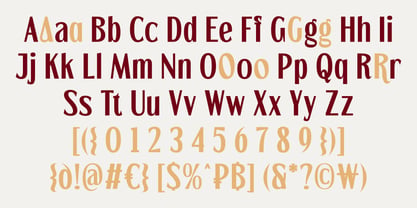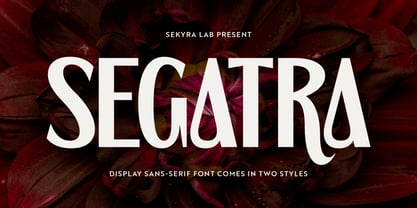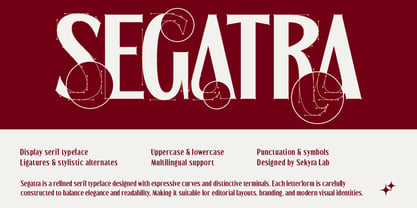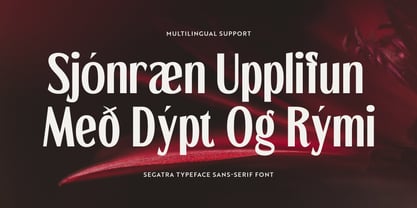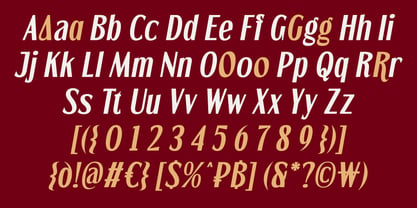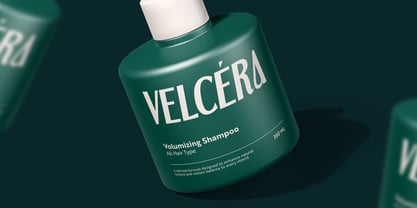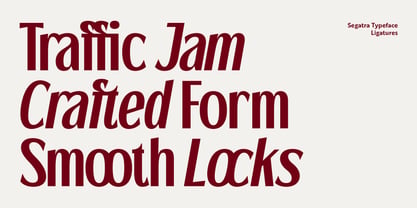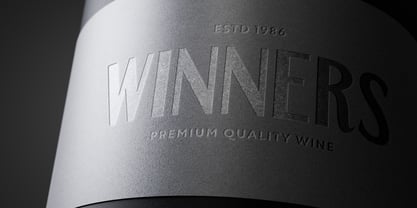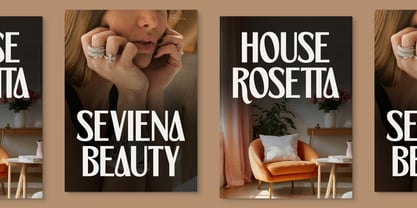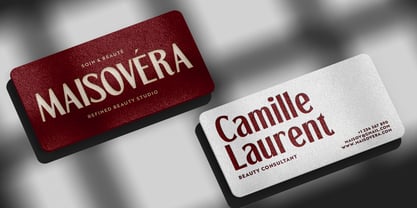
Segatra
by Sekyra Lab
The Segatra Font Family was designed by Hanif Al Irsyad and published by Sekyra Lab. Segatra contains 2 styles and family package options. More about this family
Segatra is an elegant serif display typeface crafted with expressive curves and refined details, designed to bring a sense of luxury and sophistication to modern visual projects. Each letterform is carefully shaped with distinctive terminals and smooth transitions, creating a harmonious balance between elegance and readability. The subtle contrast and flowing forms give Segatra a timeless aesthetic that feels both classic and contemporary. This typeface comes in two styles: Regular and Slanted, offering versatility for different design moods. The Regular style delivers a clean and graceful presence, while the Slanted style adds a dynamic and expressive touch, perfect for highlighting key elements. Segatra also includes ligatures and stylistic alternates, allowing you to create more refined and unique typographic compositions with a premium feel. Designed for high-end visuals, Segatra performs beautifully in both large headlines and elegant branding applications.
Designers: Hanif Al Irsyad
Foundry: Sekyra Lab